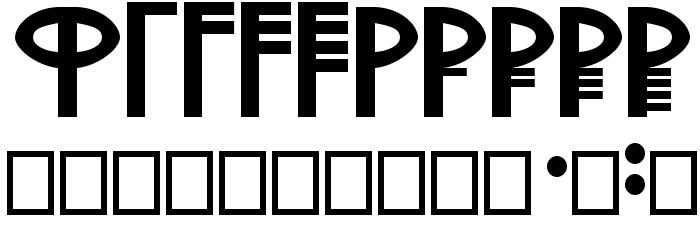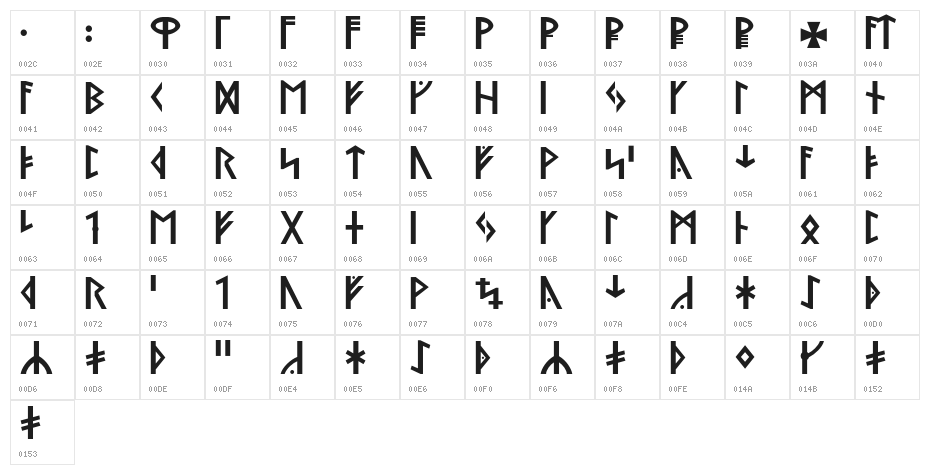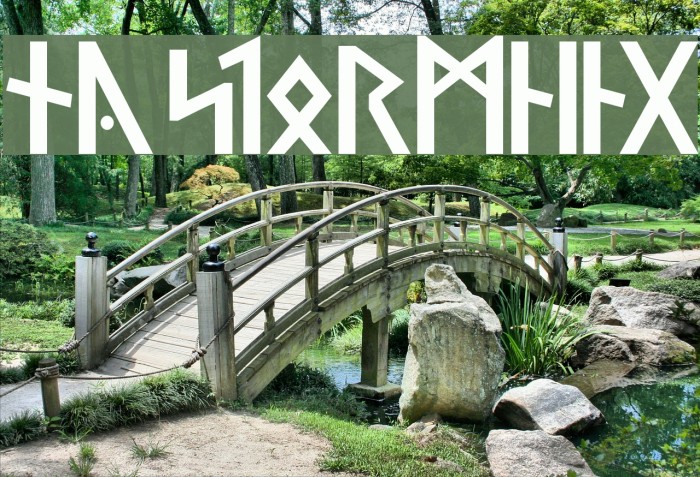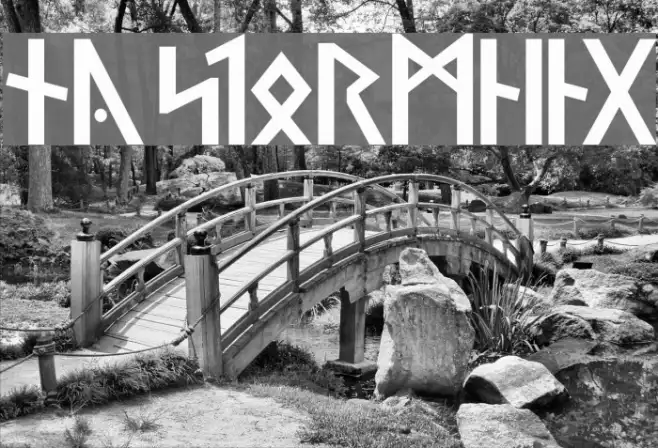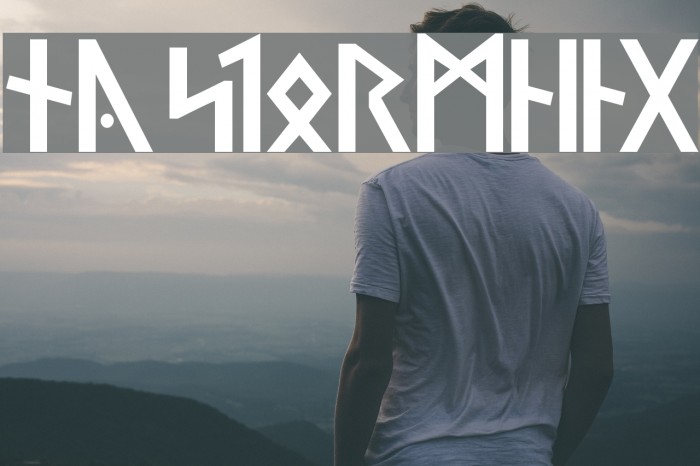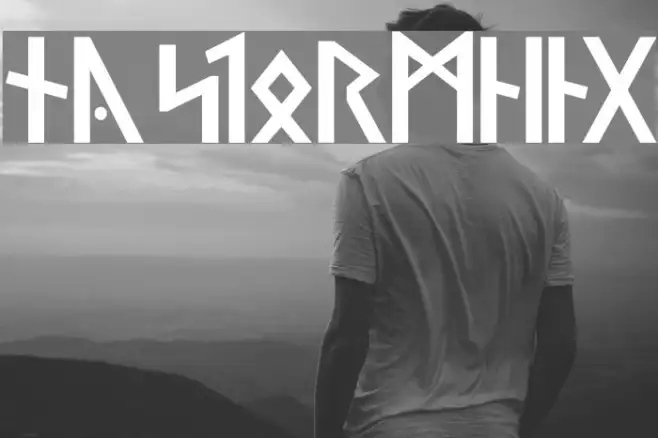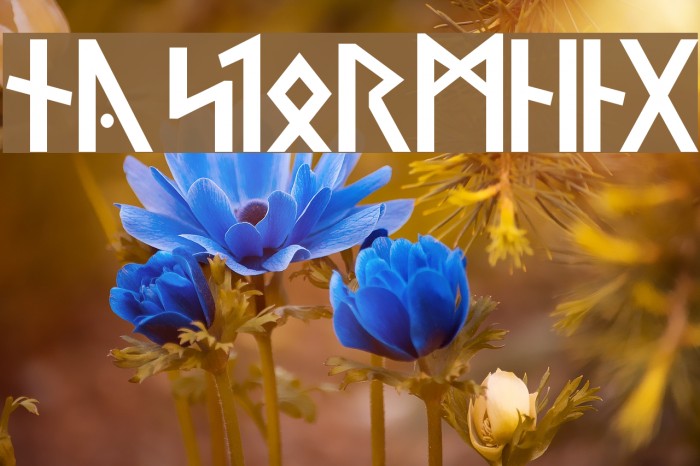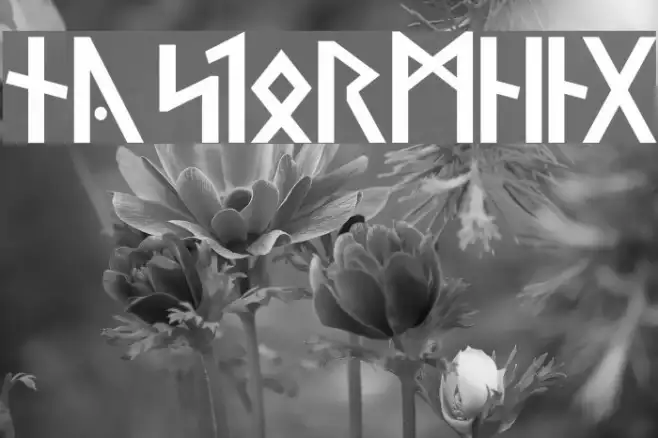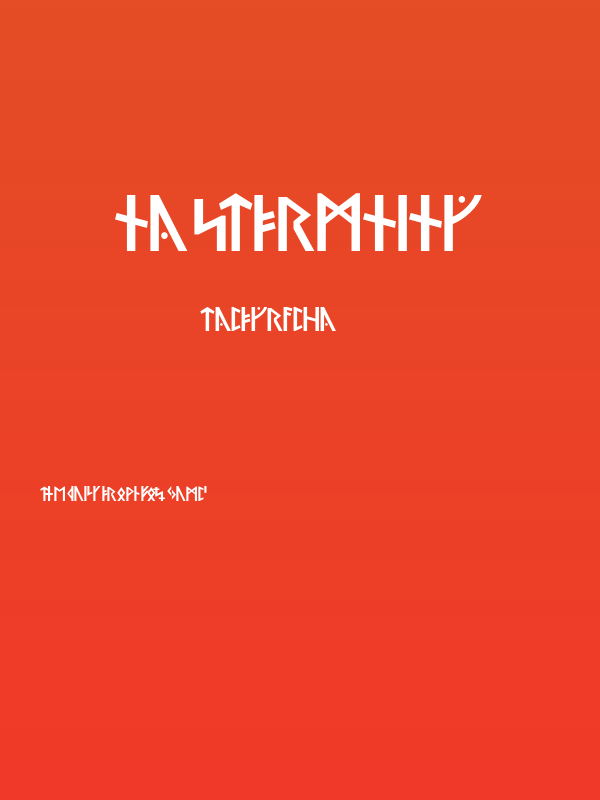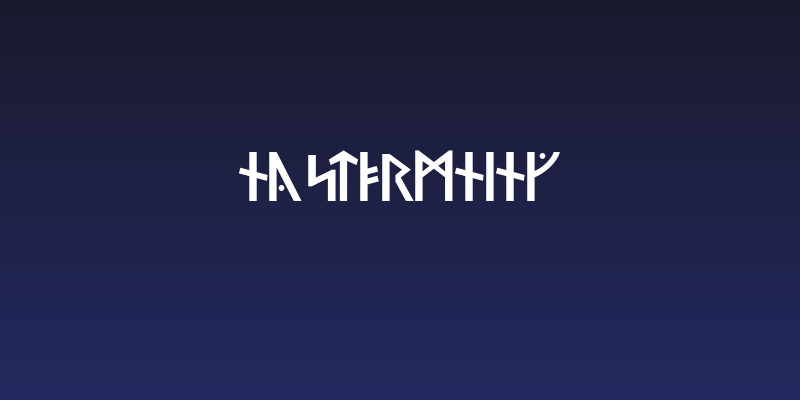
Ny Stormning Font
Ny Stormning Description
This font is inspired by ancient runic alphabets, featuring angular and geometric shapes that evoke a sense of mystery and antiquity. The characters are bold and striking, with sharp edges and a uniform thickness that gives them a powerful presence. The design is highly decorative, making it suitable for projects that require a touch of historical or mythical ambiance. The font's unique style is reminiscent of ancient inscriptions, perfect for creating a dramatic and impactful visual statement.
| Proposed Projects | Ideal for fantasy-themed designs, historical recreations, game titles, or any project needing a mythical or ancient aesthetic. |